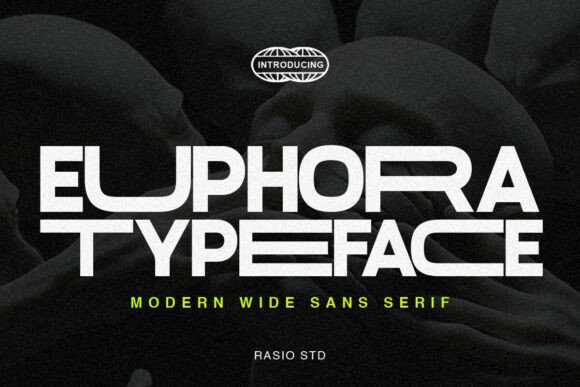
Euphora Typeface: Unleashing Bold, Cinematic Visual Statements
In the realm of typography, few typefaces manage to convey the essence of modernity and expansiveness as effectively as Euphora. This contemporary sans serif typeface is meticulously crafted to make a statement, boasting a wide format that commands attention and exudes confidence. Euphora is not just a typeface; it’s a tool for designers and creatives aiming to infuse their projects with a sense of boldness and cinematic flair.
Design Philosophy and Characteristics
Euphora’s design is rooted in the principles of geometric construction, extended horizontal proportions, and sharp, contemporary detailing. These characteristics converge to create a typeface that feels both futuristic and grounded. Its wide letterforms are engineered to produce a strong spatial rhythm, making headlines and text feel open, confident, and powerful. This is particularly beneficial in applications where visibility and impact are paramount.
One of Euphora’s standout features is its clean stroke contrast and balanced structure. This ensures that while the typeface maintains a distinctive modern character, it does not compromise on clarity. Whether used in digital media or print, Euphora delivers high legibility, making it a versatile choice for a wide array of applications.
Applications and Use Cases
Euphora’s versatility and impact make it suitable for a variety of projects. Technology brands looking for a typeface that communicates innovation and forward-thinking will find Euphora to be an excellent choice. Creative agencies can leverage its bold presence for client campaigns that require a standout visual identity. Additionally, Euphora is perfect for:
• Futuristic branding systems that demand a modern and sleek aesthetic.
• Music and entertainment visuals where bold and expansive typography is often a key element.
• Fashion campaigns that require a typeface with a confident and powerful stance.
• Editorial headlines that need to capture attention quickly.
• High-impact promotional materials that benefit from a typeface with undeniable presence.
Practical Applications in Design
Euphora’s wide proportions make it particularly well-suited for designs that require a bold presence. Some practical applications include:
• Posters and Album Covers: Euphora’s expansive letterforms create a visually striking effect, ideal for posters and album covers that need to stand out.
• Digital Banners and Website Headers: In digital spaces, Euphora’s clean lines and geometric construction ensure that messages are conveyed with clarity and impact.
• Social Media Graphics: For social media, where visuals are consumed rapidly, Euphora helps in creating graphics that are instantly eye-catching and memorable.
Why Choose Euphora?
Euphora offers a unique combination of modernity, versatility, and impact. Its design caters to the needs of contemporary visual communication, where standing out is crucial. By choosing Euphora, designers and brands can ensure their message is delivered with:
• Boldness: Euphora’s wide format and geometric design make it inherently bold.
• Clarity: Despite its expansive nature, Euphora maintains high legibility across various mediums.
• Versatility: Suitable for a wide range of applications, from digital to print.
In conclusion, Euphora Typeface is a powerful tool for anyone looking to make a visual statement. Its modern design, combined with its versatility and impact, makes it an invaluable asset for designers and brands aiming to leave a lasting impression.